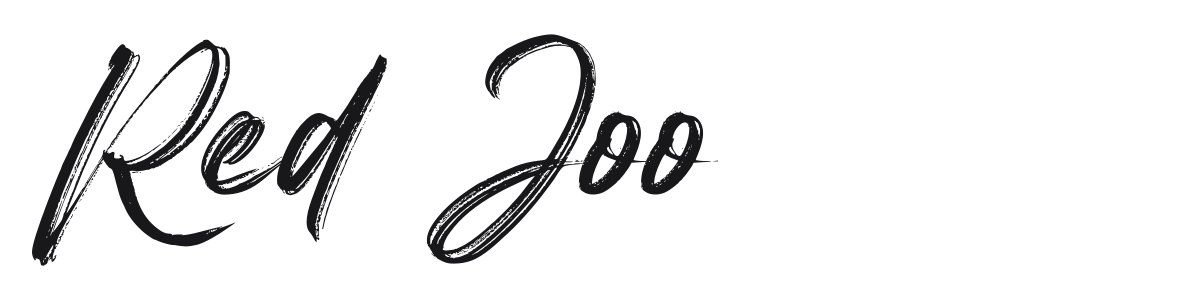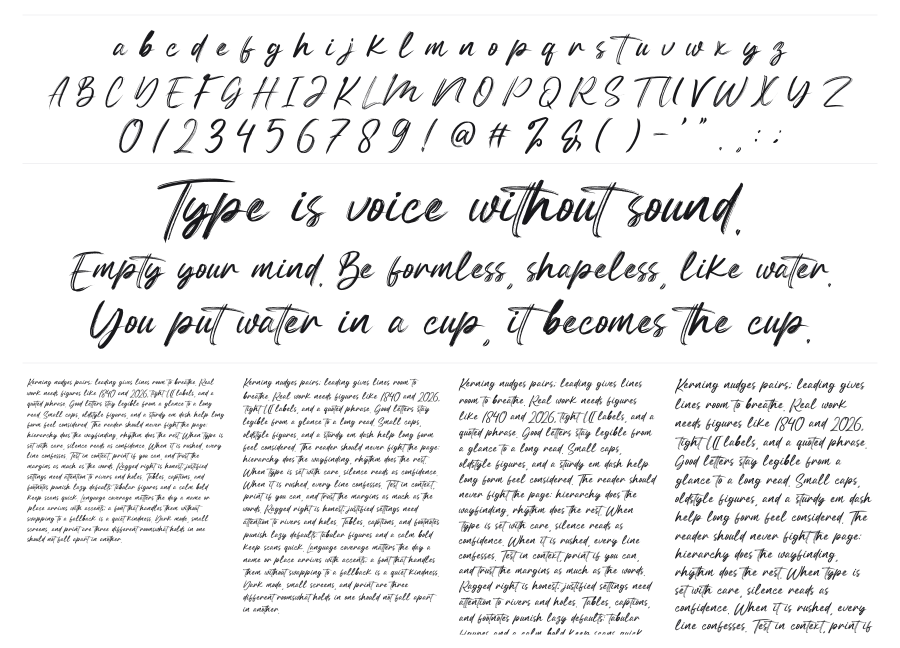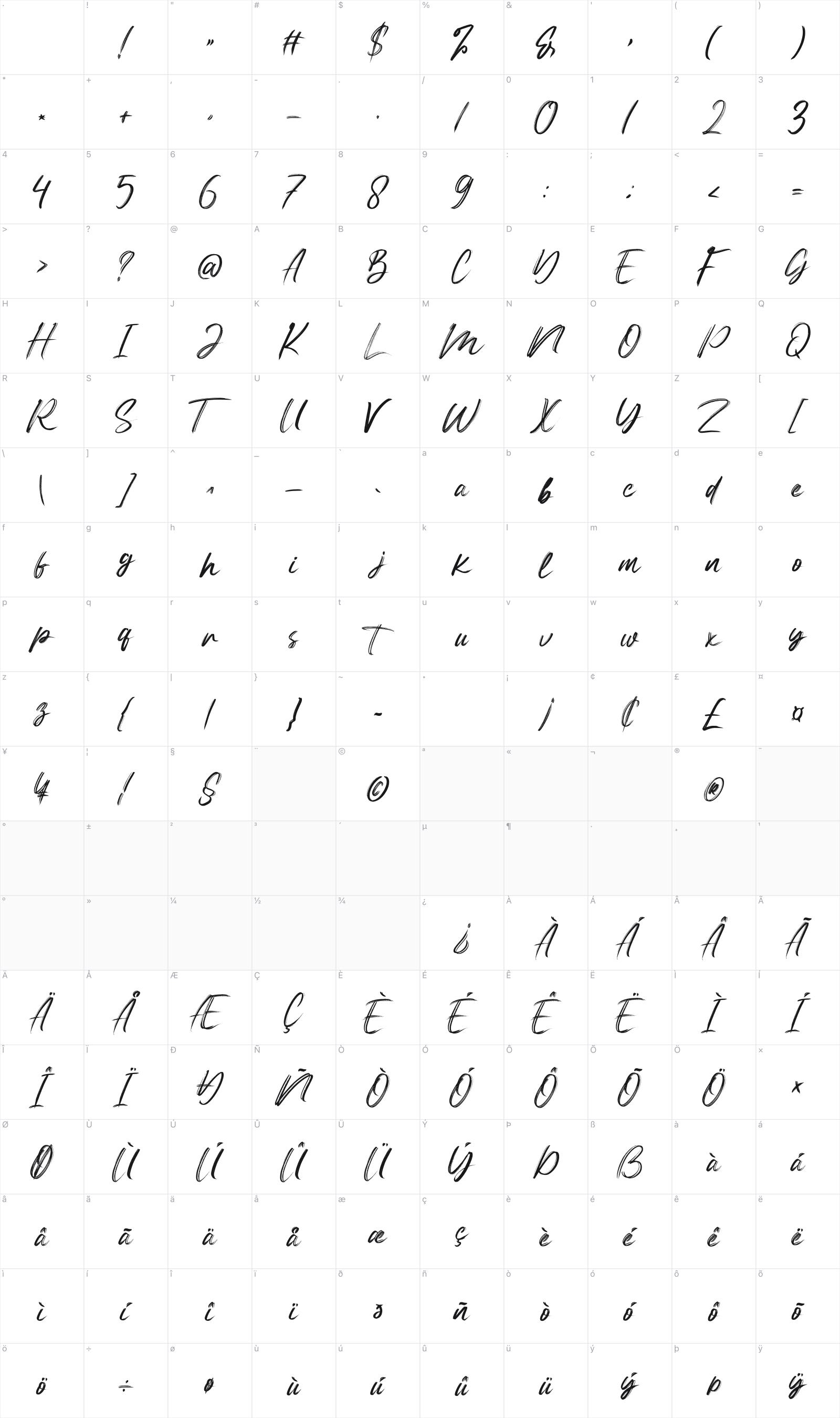
Red Joo
Red Joo is a bold casual brush script that channels the energy of hand-lettering with thick, ink-dragged downstrokes and wispy hairline upstrokes. The letters flow together with a natural irregularity — slight wobbles, overlapping swashes, and a loose baseline that keeps it feeling genuinely handmade. It has real presence at large sizes and works well wherever an artisanal or expressive mood is needed.